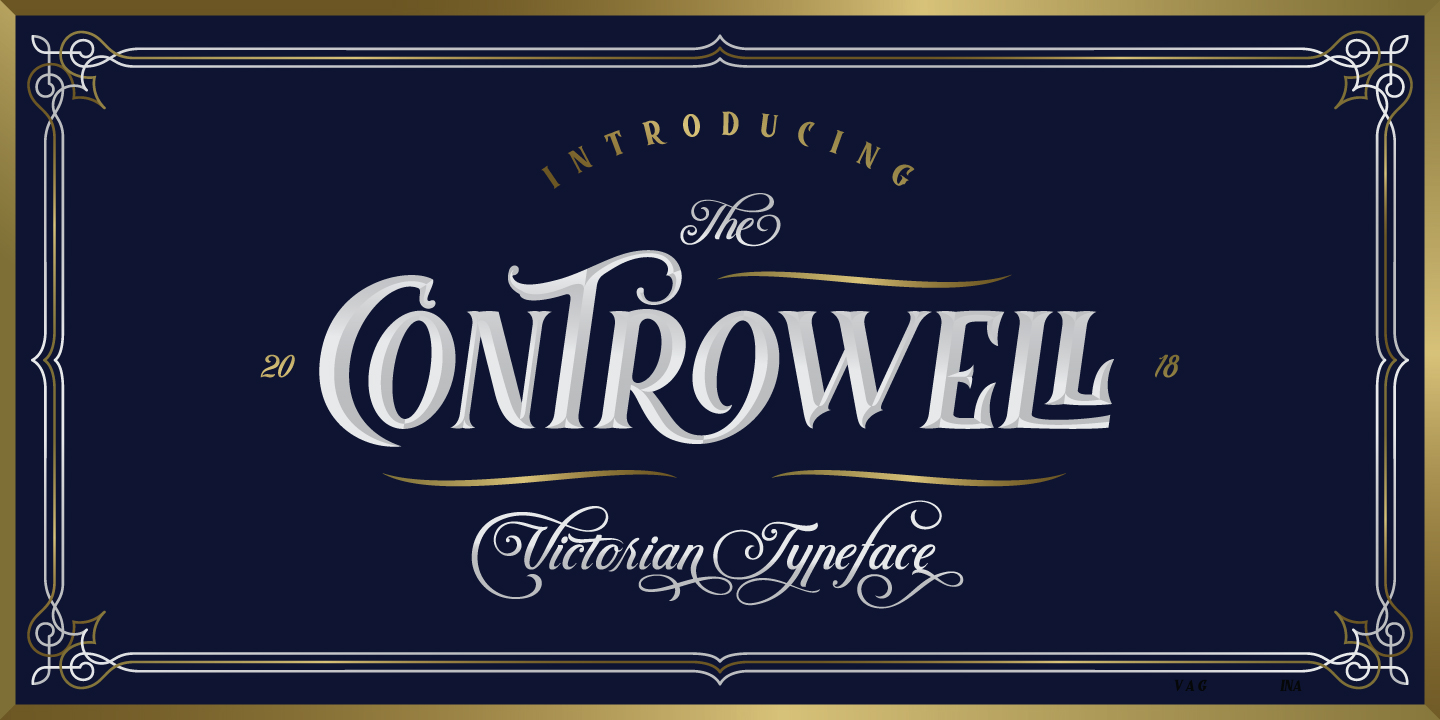
The Controwell Font is perfect for corporate consulting branding, management systems documentation, quality control signage, industrial automation graphics, professional auditing materials, compliance training presentations, operational excellence logos, process management interfaces, and systematic business solutions marketing.
What makes the Controwell Font so exciting is its precision-engineered control that instantly communicates systematic excellence and methodical reliability. This authoritative typeface embodies the structured approach and disciplined methodology that defines professional control systems, creating an immediate impression of competence and operational mastery. The font's controwell character communicates the systematic precision and reliable control that management-focused businesses need to attract clients who demand proven methodologies and seek professional solutions that deliver consistent, measurable results through disciplined operational excellence.
The Controwell Font family includes Regular weight featuring complete uppercase and lowercase character sets, comprehensive numerical collections, essential punctuation marks, and control system symbols that maintain the systematic aesthetic throughout your management and operational control design projects.
Management consulting firms and operational excellence organizations consistently choose Controwell Font Free Download for projects that require authentic control system appeal and systematic professional communication. This exceptional typeface excels in environments where establishing operational credibility and systematic competence is crucial for attracting business clients who value proven methodologies and reliable control systems. The font's controwell character helps communicate the precision and systematic approach that operational excellence audiences expect from established management consultants and professional control system providers.
The distinctive qualities of Controwell Font reflect the disciplined traditions of operational management where systematic control, methodical precision, and reliable processes create superior business results and sustainable organizational improvement. Each character demonstrates the structured approach and disciplined methodology that characterizes successful management consulting firms and operational excellence enterprises. The font's proportions and spacing create perfect balance between systematic authority and practical functionality that modern management businesses require for effective operational communication and professional credibility.
Contemporary management enterprises appreciate how Controwell Font communicates operational excellence and systematic reliability. Whether designing materials for quality management systems, creating branding for process improvement consultancies, or developing marketing for operational control solutions, this font delivers the authoritative character that distinguishes proven management methodologies from theoretical approaches. The typeface works exceptionally well for businesses emphasizing systematic control, operational precision, and the reliable appeal of disciplined management excellence and proven control systems.
The versatility of Controwell Font extends across multiple management applications and operational excellence marketing initiatives. Quality assurance companies utilize its systematic character for certification materials and compliance documentation. Business process consultants choose it to communicate their expertise in operational control and systematic improvement methodologies. Management software developers rely on its authoritative appearance to attract enterprise clients seeking reliable control systems and proven operational management solutions.
Digital management platforms benefit from Controwell Font's optimized performance across various operational applications and systematic communication channels. The font maintains its controwell character whether displayed on management websites, mobile operational apps, or high-resolution business presentations. This technical reliability ensures consistent brand presentation across all management communication platforms and operational excellence engagement scenarios.
The psychological impact of Controwell Font resonates with business leaders who value systematic control and seek reliable operational solutions that deliver consistent results through proven methodologies. The typeface serves as a visual guarantee of systematic competence and operational reliability that helps management businesses build lasting relationships with clients who demand proven control systems and systematic business improvement. This connection to operational excellence and systematic reliability makes it invaluable for establishing credible management consulting brand identities.
Management marketing specialists and operational excellence design professionals recognize Controwell Font as an essential tool for authentic systematic branding. The font captures the essence of operational control while making systematic excellence accessible to contemporary management businesses who want to communicate their commitment to proven methodologies, reliable control systems, and the disciplined approach of professional operational management in today's results-driven business marketplace.